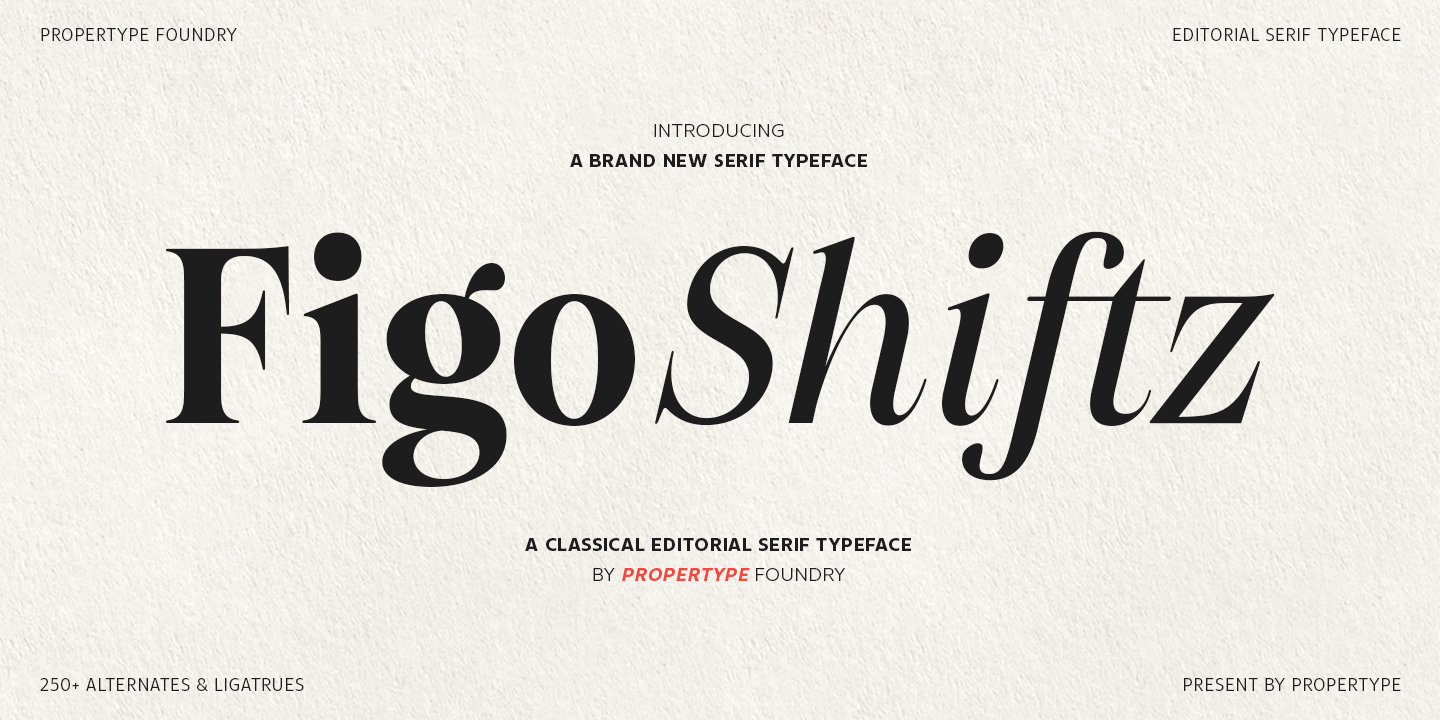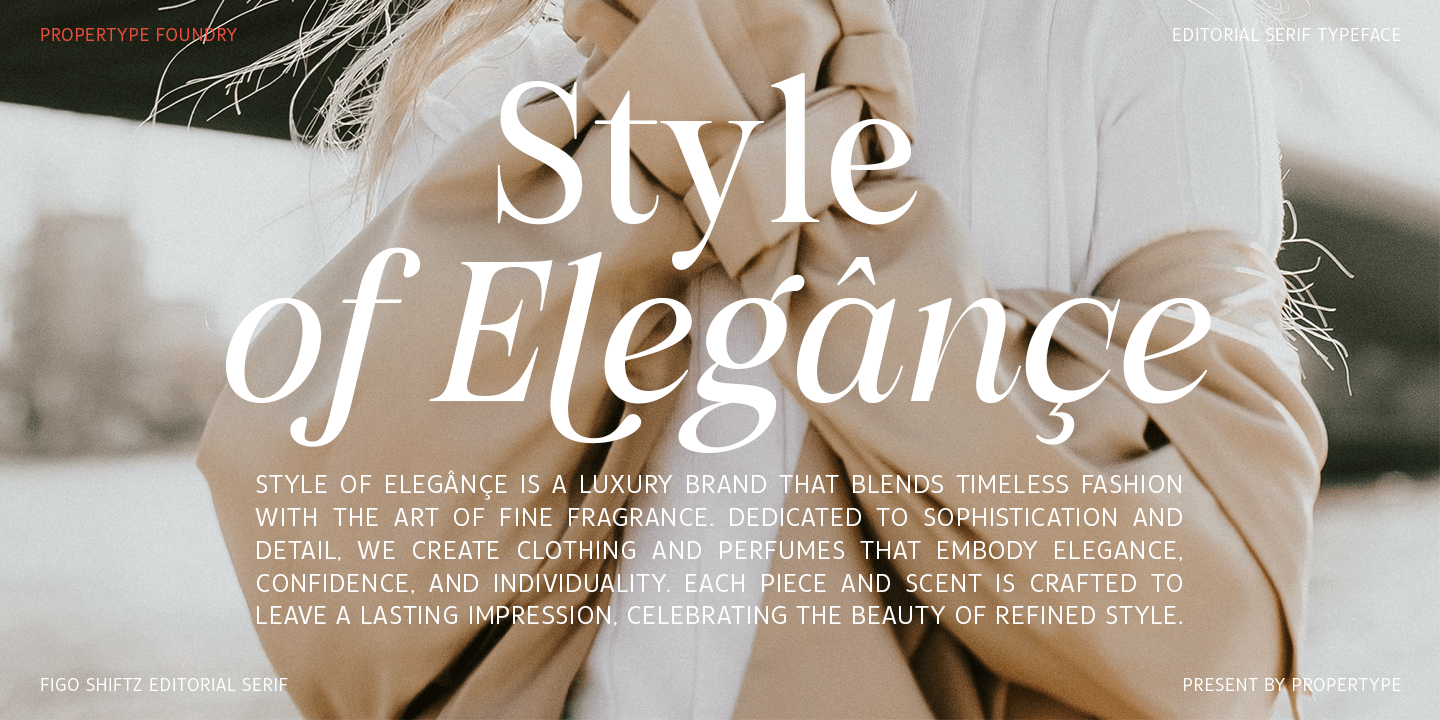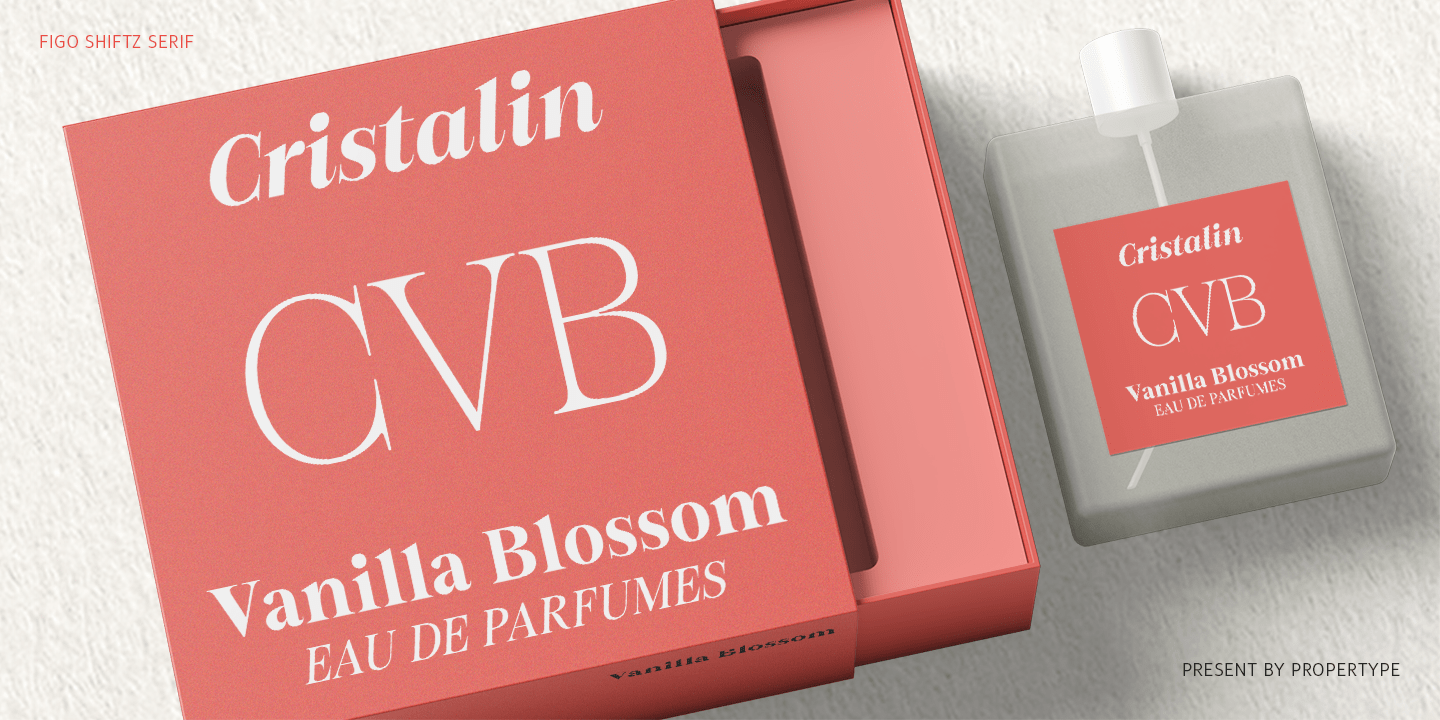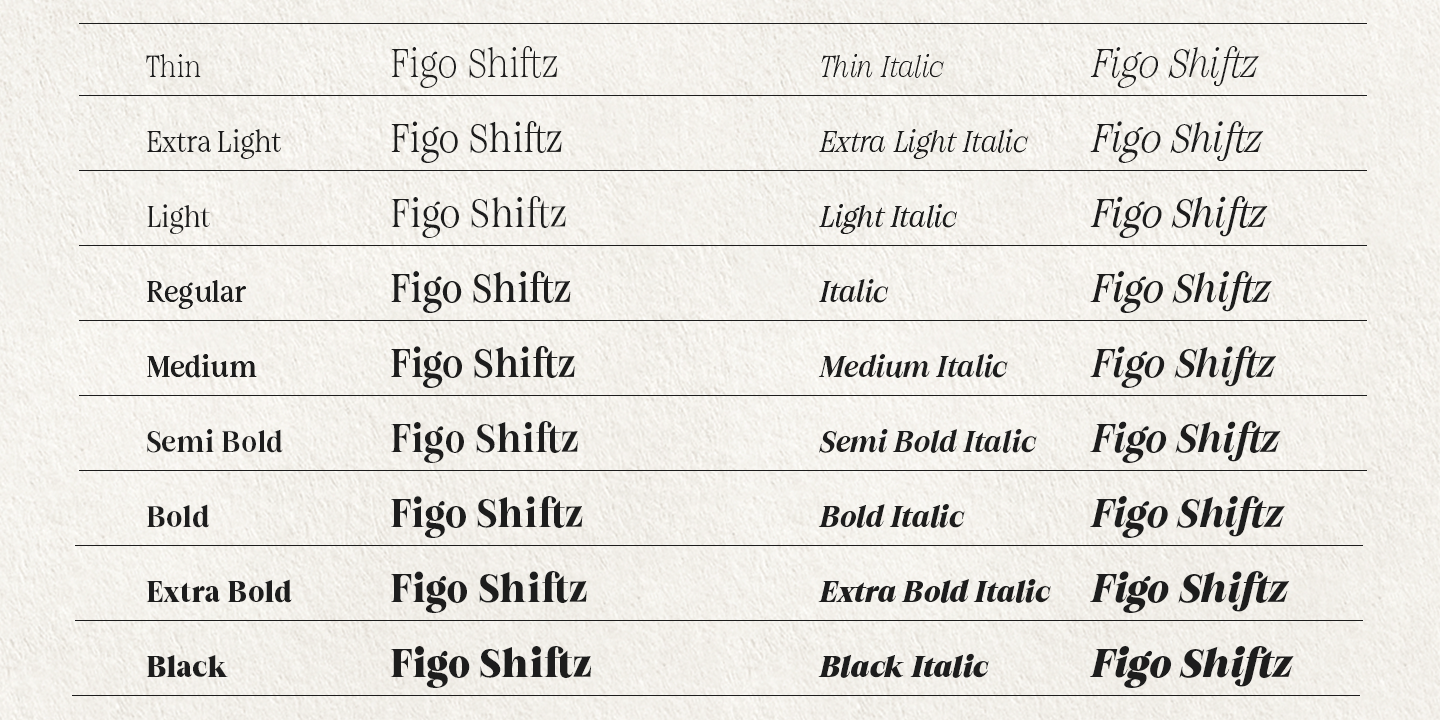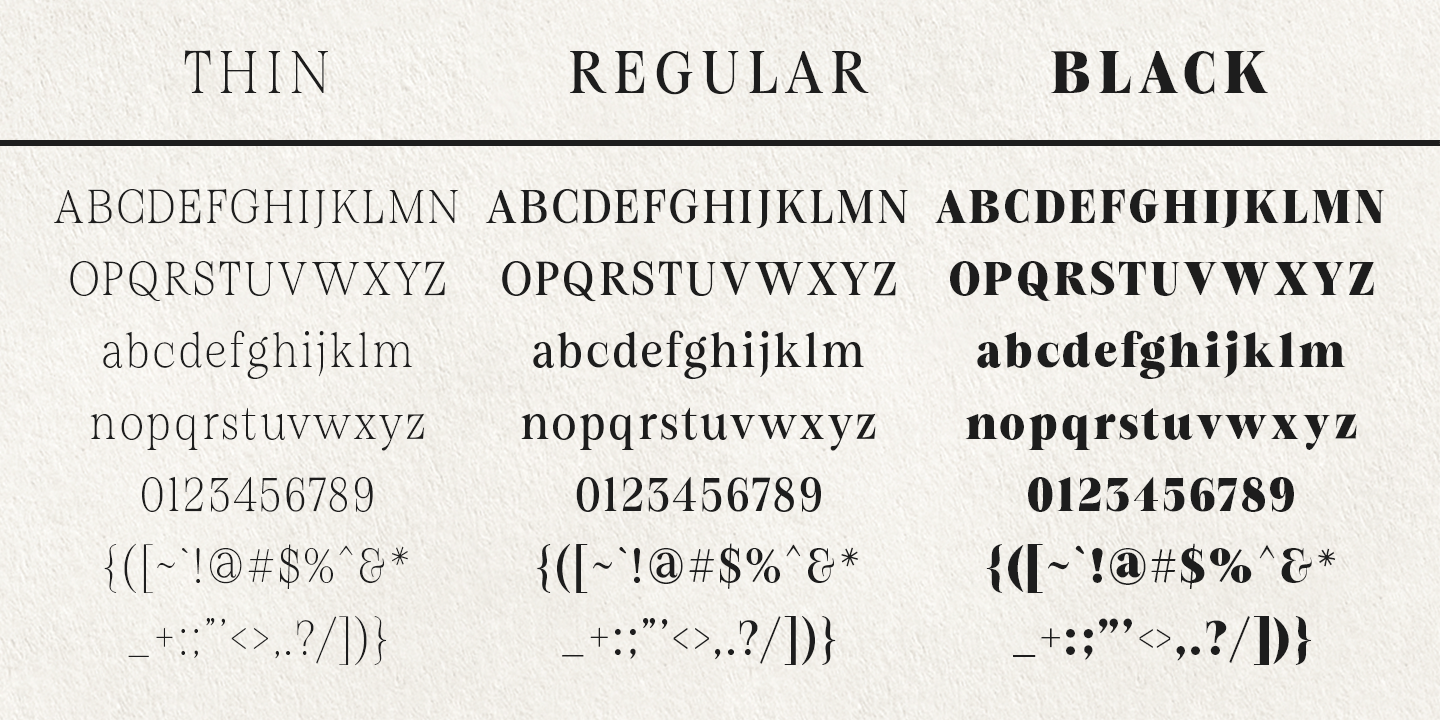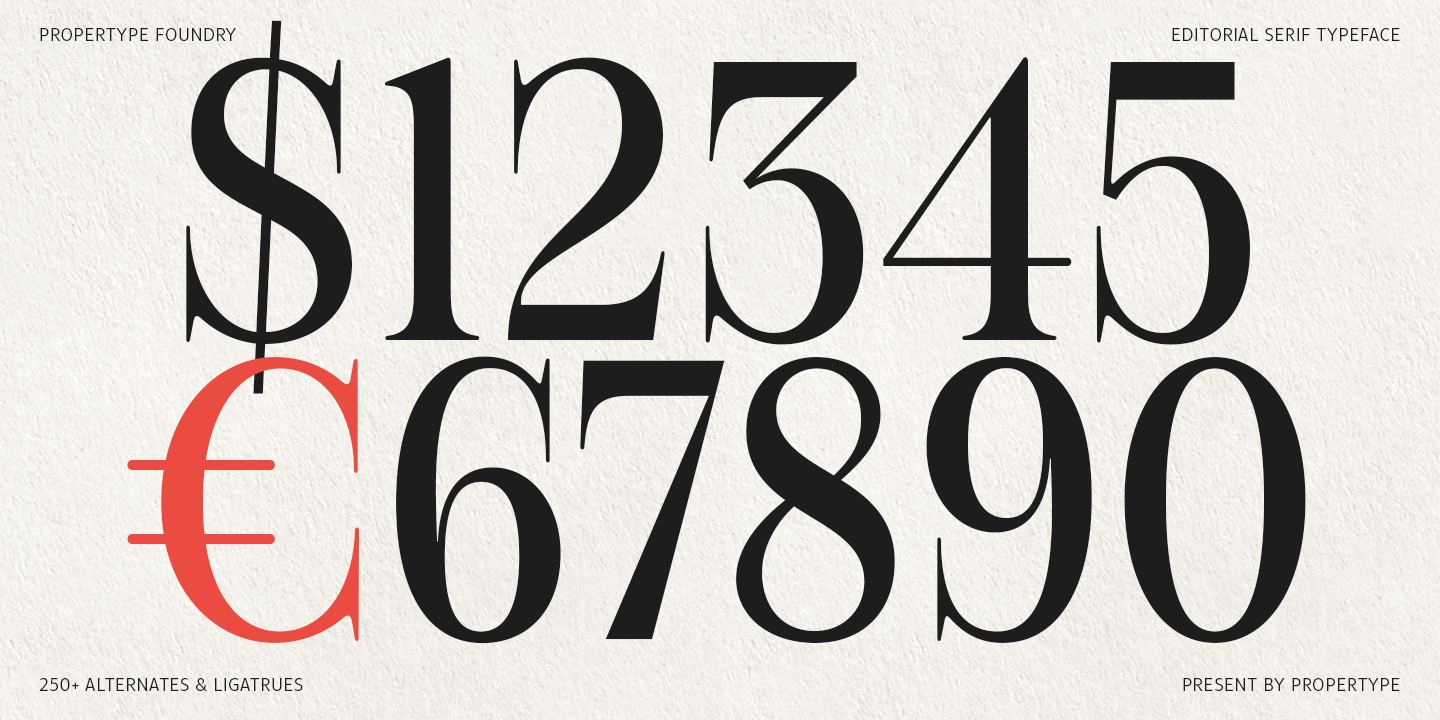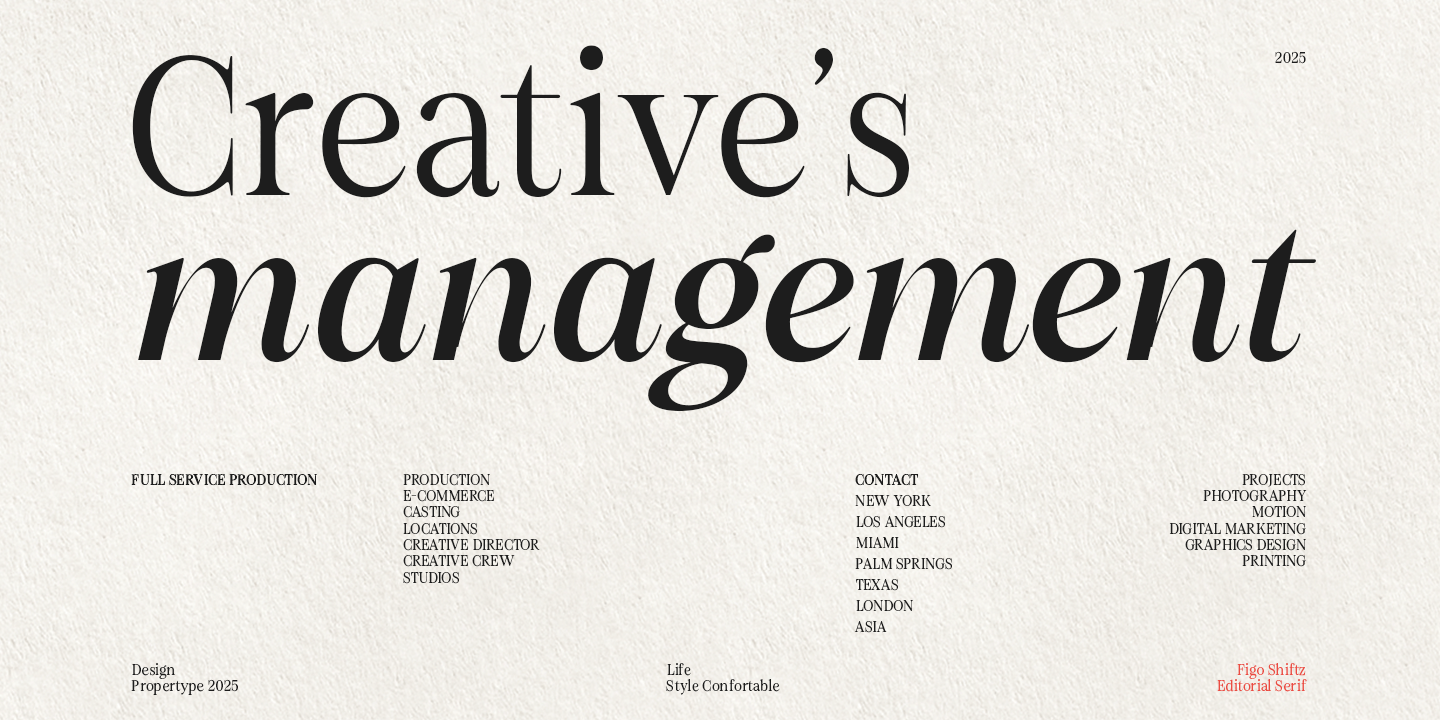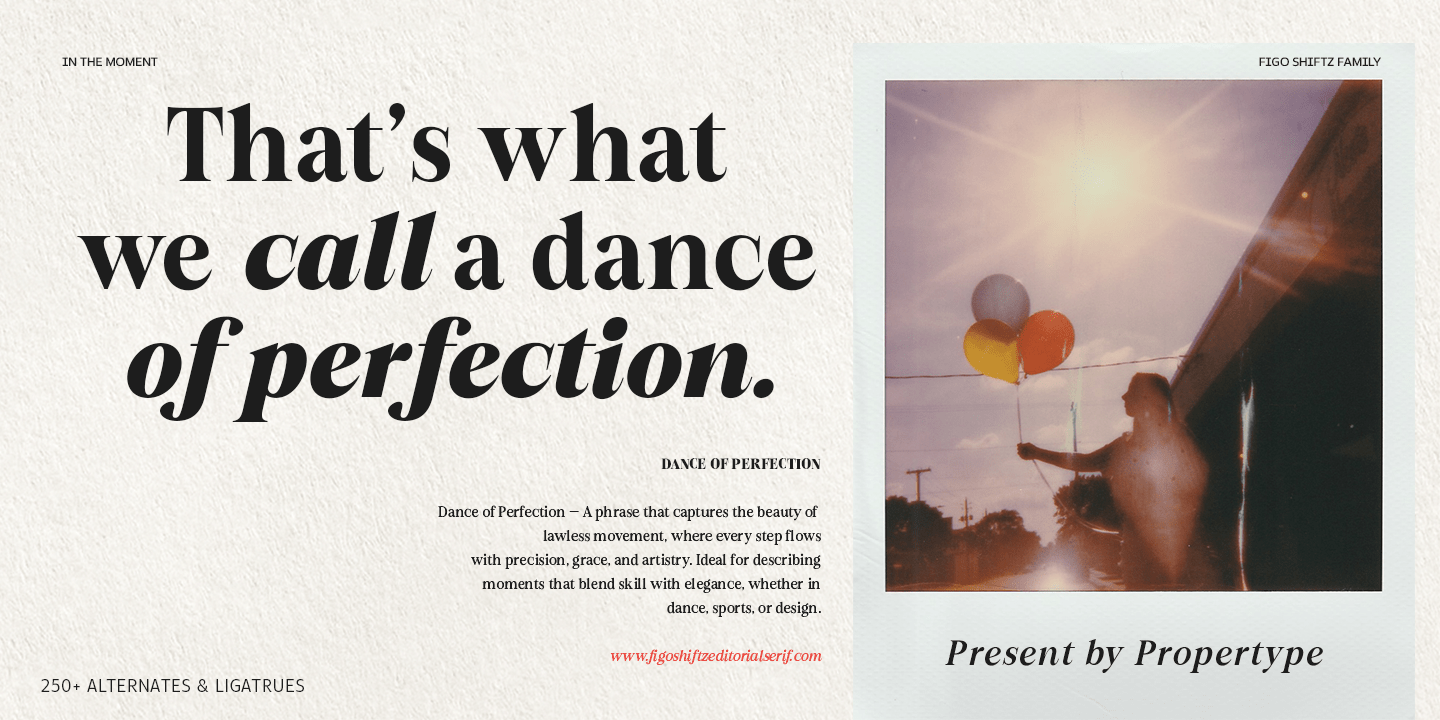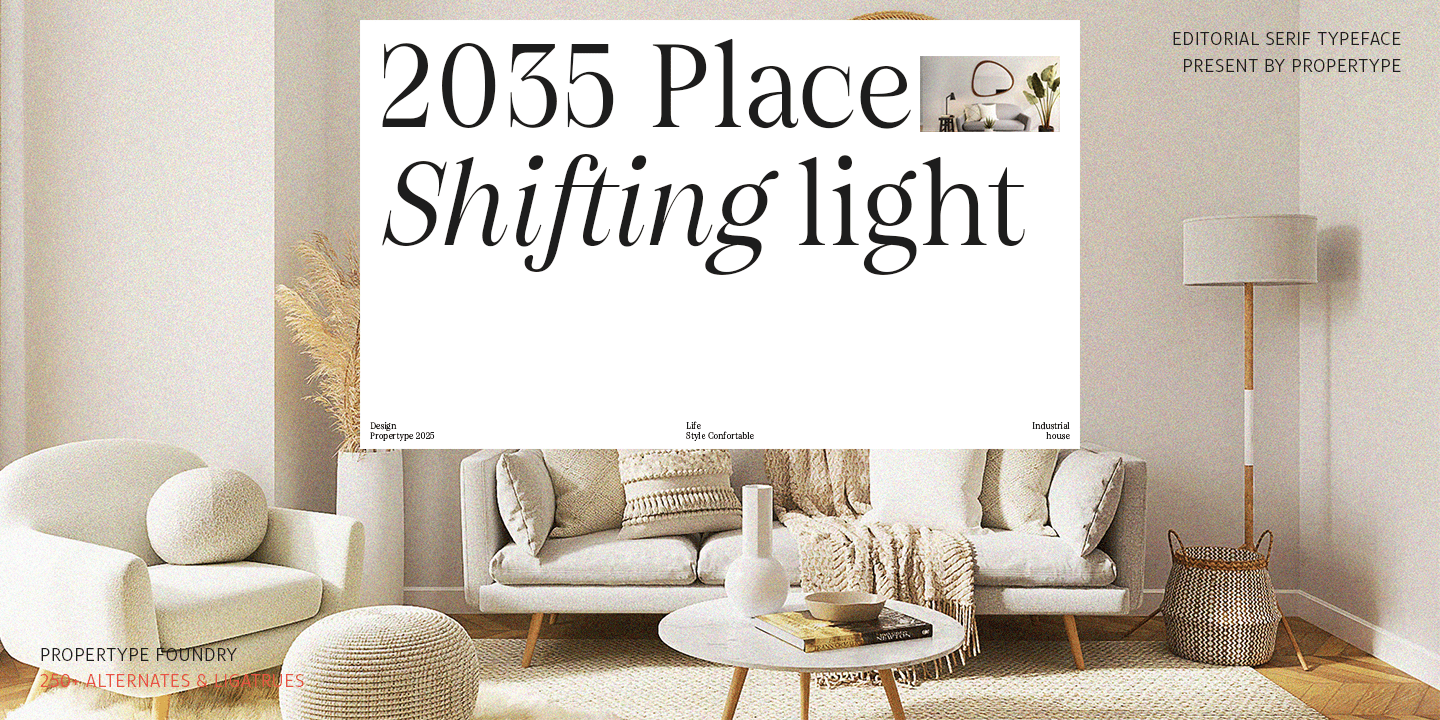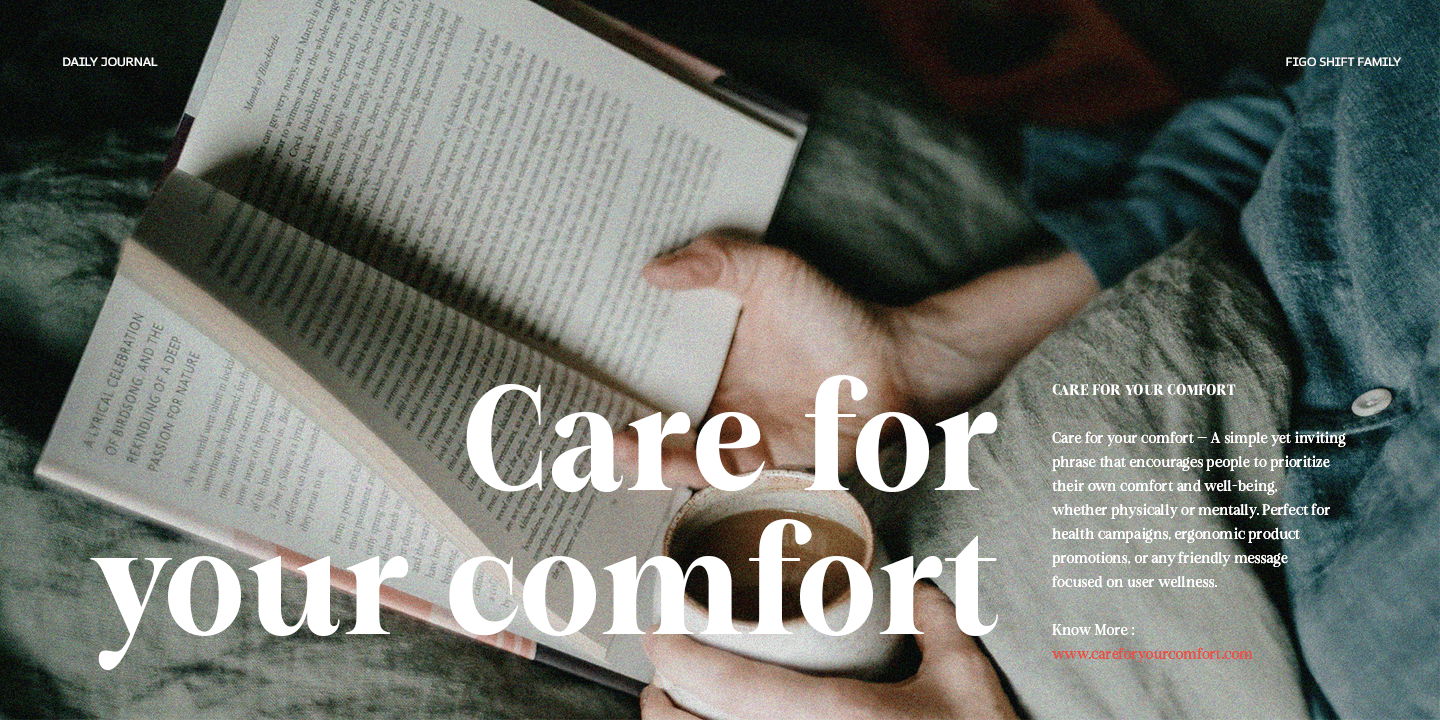
Figo Shiftz
Figo Shiftz is a classical editorial serif typeface that blends the timeless elegance of traditional typography with a refined contemporary touch. Designed to deliver both beauty and versatility, Figo Shiftz offers 250+ alternates & ligatures, enabling limitless creative expression—from dramatic headlines to perfectly composed body text. With 9 weights ranging from Thin to Black, paired with refined calligraphic italics, Figo Shiftz gives you full control over your typographic voice. Its graceful serifs, finely tuned contrast, and sophisticated curves make it the ideal choice for editorial and magazine layouts, fashion and luxury branding, packaging and visual identity, typographic posters, and premium promotional materials. Also available as a variable font, Figo Shiftz strikes the perfect balance between classical beauty and modern sharpness—bringing a sophisticated presence to any medium, in both print and digital.